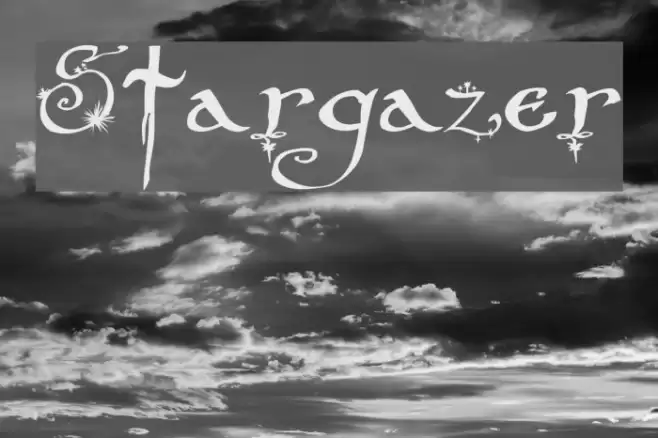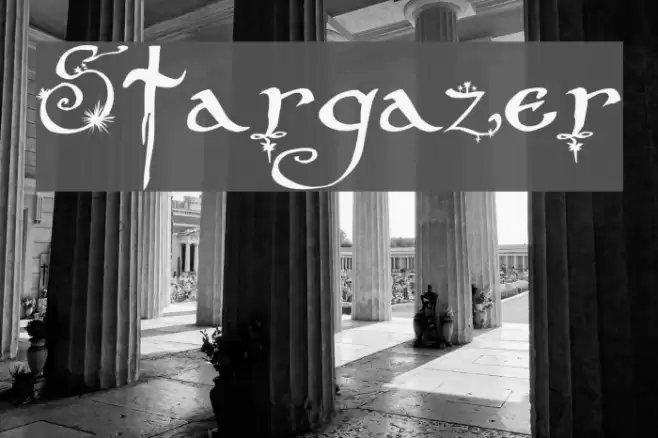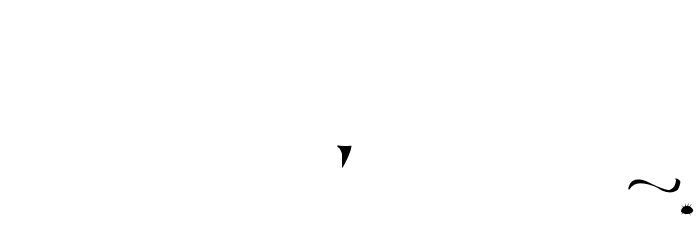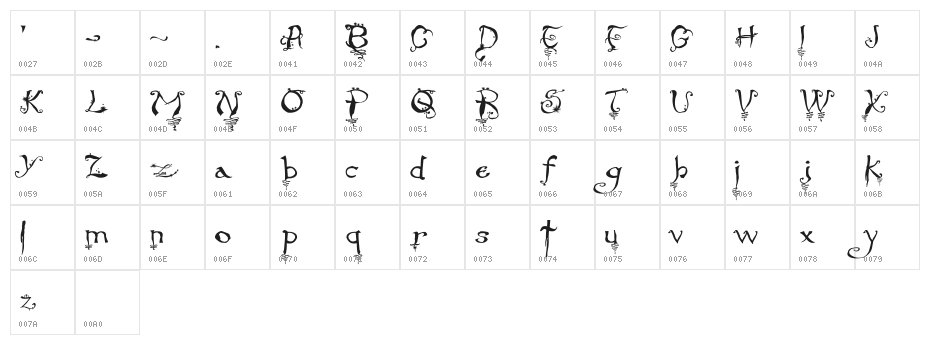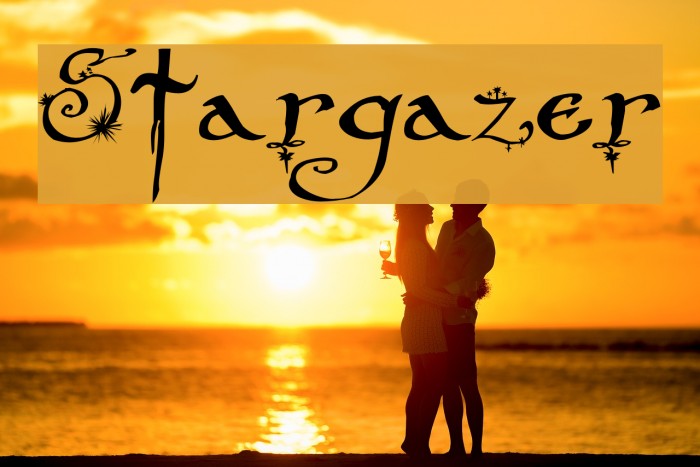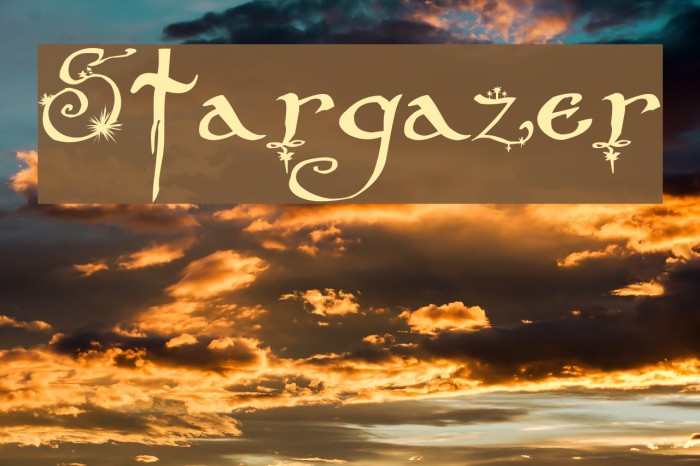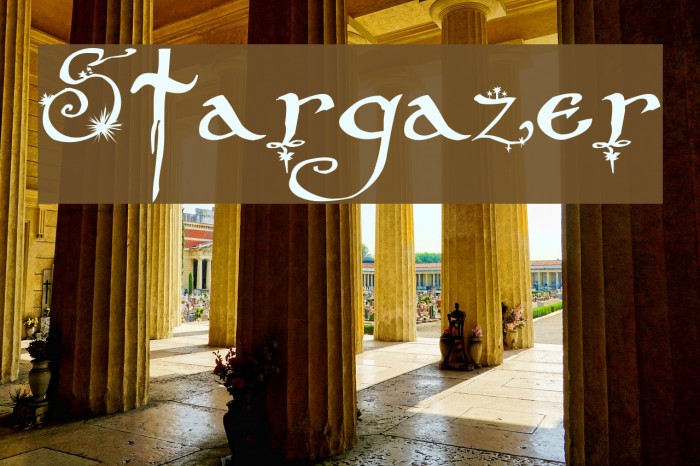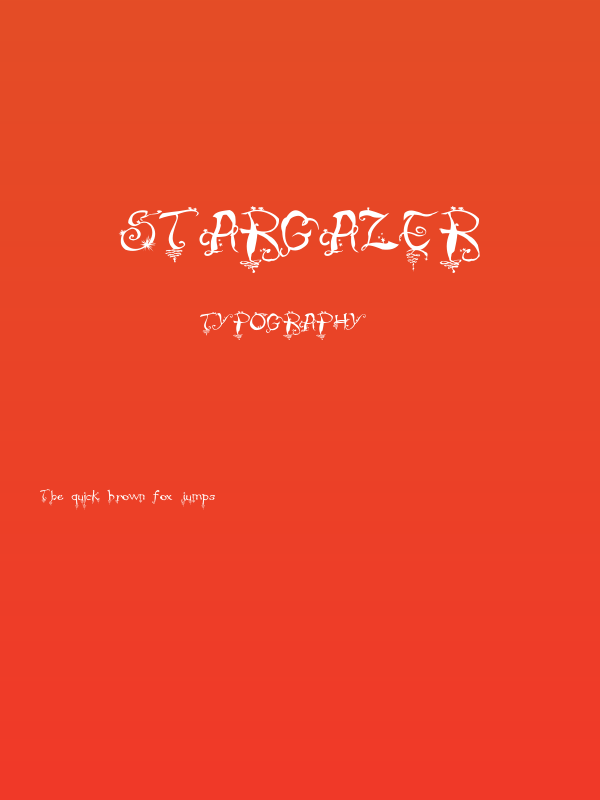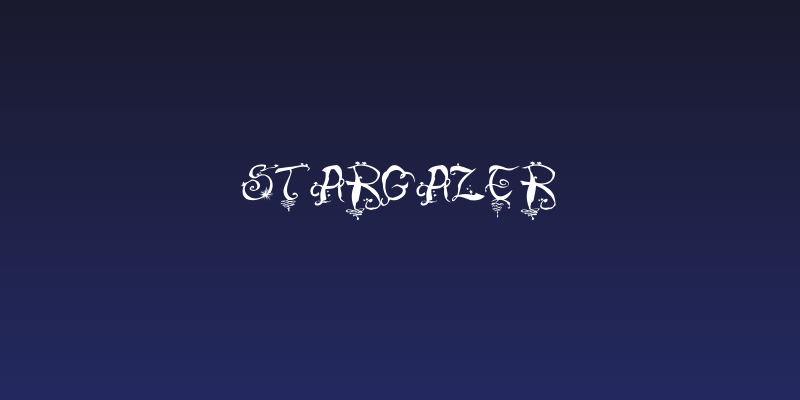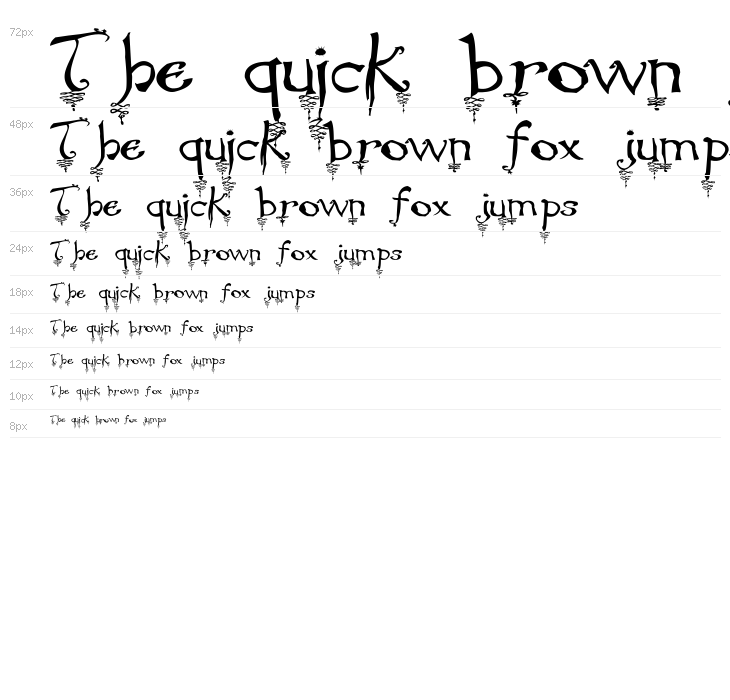
Stargazer Font
Stargazer Description
This font features an enchanting and whimsical design, characterized by its intricate and decorative elements. Each letter is adorned with star-like embellishments and swirling accents, creating a celestial and mystical appearance. The uppercase letters are particularly elaborate, with extended strokes and unique flourishes that give them a magical quality. The lowercase letters maintain a consistent style, offering a harmonious blend of elegance and fantasy. This font's artistic flair makes it ideal for projects that require a touch of the extraordinary.
A whimsical and decorative font with celestial embellishments and swirling accents from Uncategorized fonts.
- Proposed Projects: Ideal for fantasy book covers, magical event invitations, themed posters, and artistic branding.
- Use Case: Logos, Headlines, Artistic projects